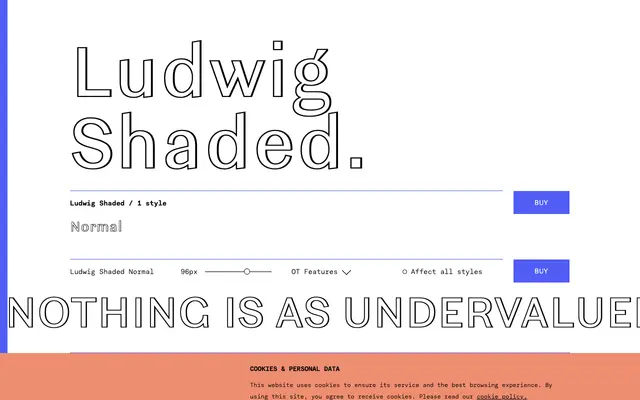
Ludwig Shaded
TYPE BY · Fred Smeijers · 2019
A shaded display cut of Fred Smeijers' Ludwig grotesque, originally drawn in 2007-2009 and released commercially in 2019.
Ludwig Shaded is one of two decorative variants — alongside Ludwig Outline — drawn from Smeijers' Ludwig family, a grotesque rooted in early German sanserifs of the mid-19th century. The single Normal weight carries the same considered letterforms as the text family, with their characteristic period clumsiness, now amplified for headline and poster work through the shaded treatment. It shares proportions with TYPE BY's Arnhem, making it a natural companion for mixed-family settings.
A decorative shaded variant of Ludwig, itself a grotesque sans rooted in early 19th-century German sanserif tradition. The shaded treatment places it firmly in the display category despite the base family's text capabilities.